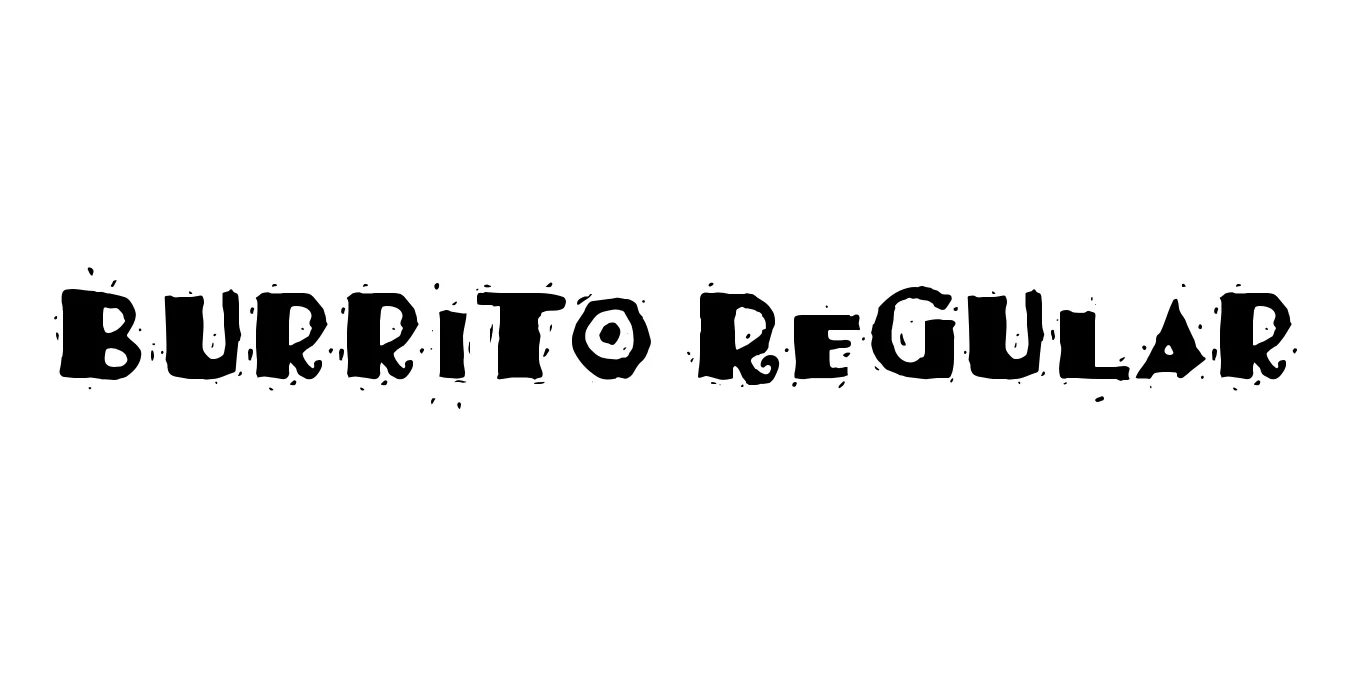
Burrito Regular
Designed by David Rakowski
| Font Name | Burrito |
| Category | Display / Decorative |
| Designer | David Rakowski |
| Similar Fonts | Hobo, Jokerman, Comic Sans, Taco |
Burrito Regular is a distinctive display typeface created by the prolific font designer David Rakowski. Developed during the early 1990s, it captures a playful and somewhat hand-drawn aesthetic that prioritizes personality over strict formal structure, making it a staple in the world of independent freeware typography.
The font is characterized by its irregular strokes and rounded terminals, giving it a friendly, informal appearance reminiscent of casual signage and festive environments. It has become a popular choice for lighthearted projects, food-related branding, and casual invitations where a sense of warmth, humor, and movement is desired.
Burrito Regular Best Uses
Ideal for restaurant menus, food trucks, and casual dining logos.
Perfect for birthday cards, fiestas, and festive event announcements.
A whimsical look suitable for book titles and cover designs.
Great for quirky graphic tees and casual streetwear labels.